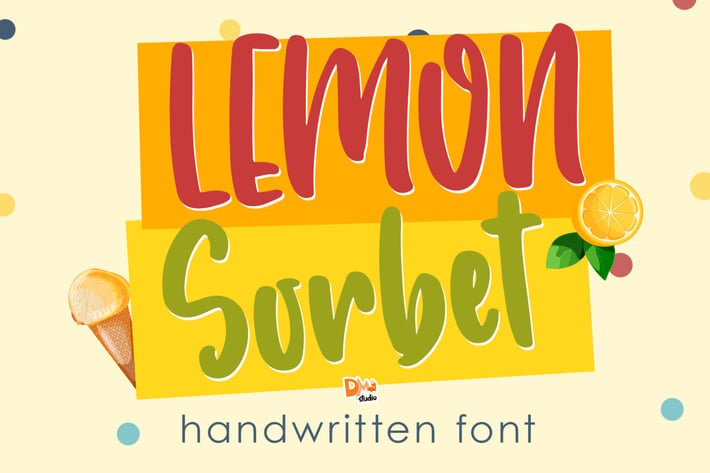
Lemon Sorbet - Handwritten Font
Lemon Sorbet
This lovely and crafty font will freshen your day! Great for you who loves to collect handwritten font for your designs!
-Uppercase
-lowercase
-numeric
-symbols
-multilingual support